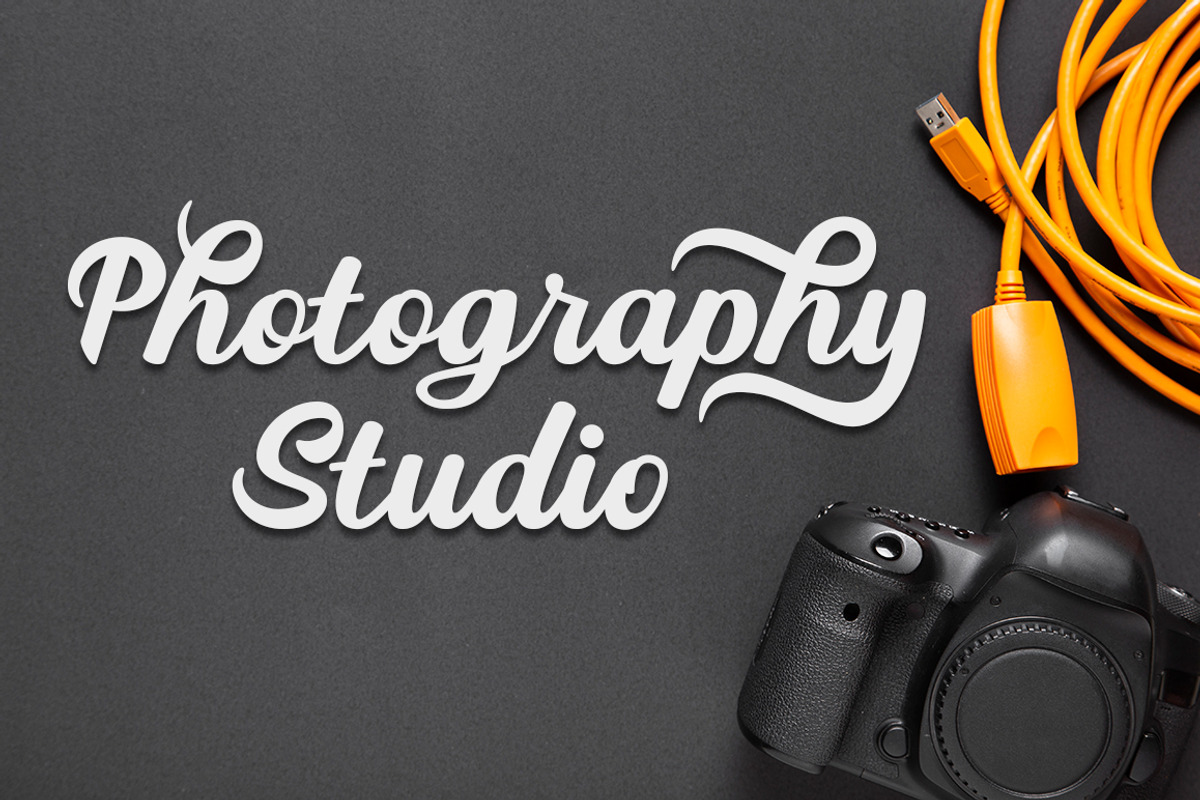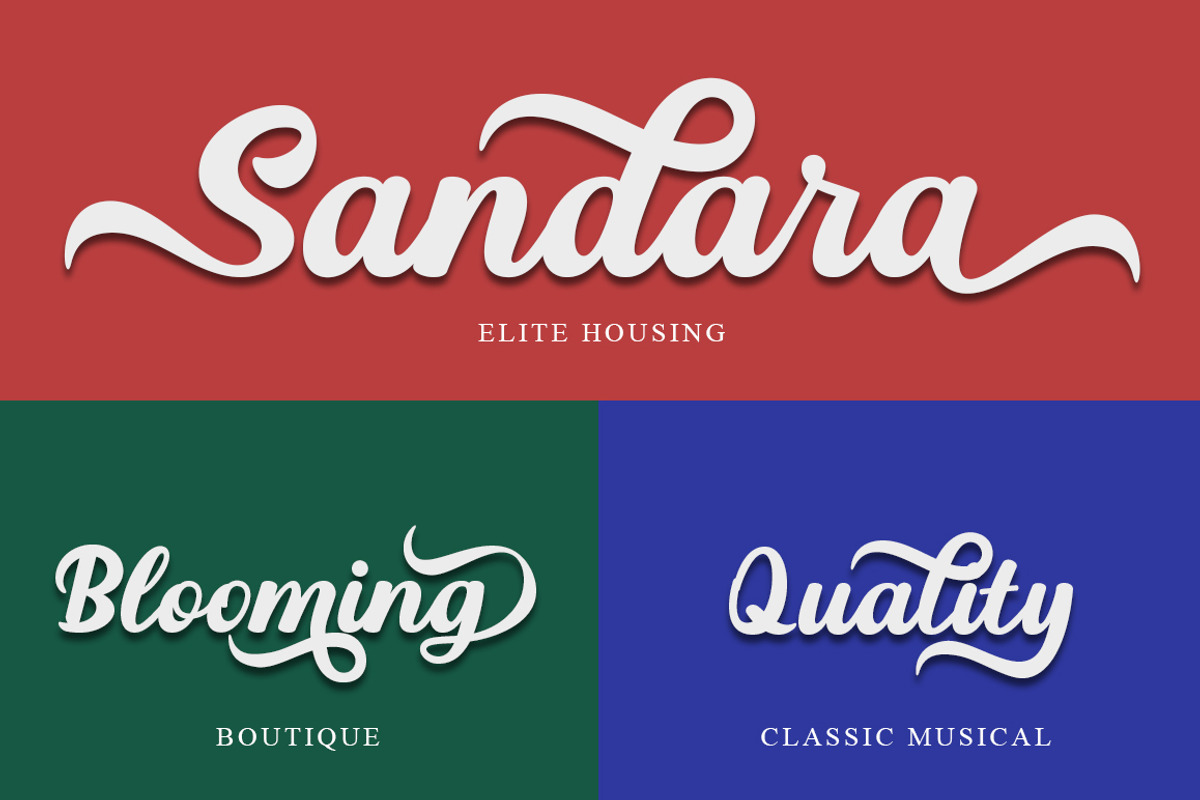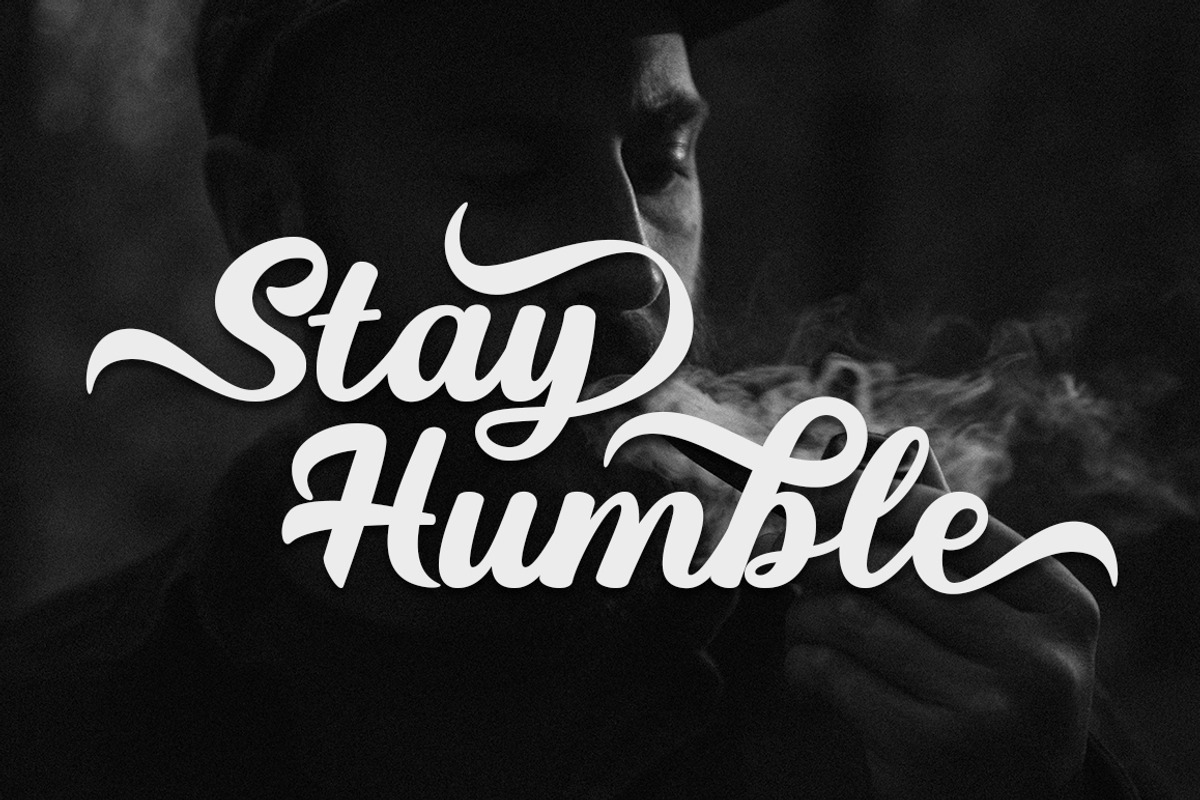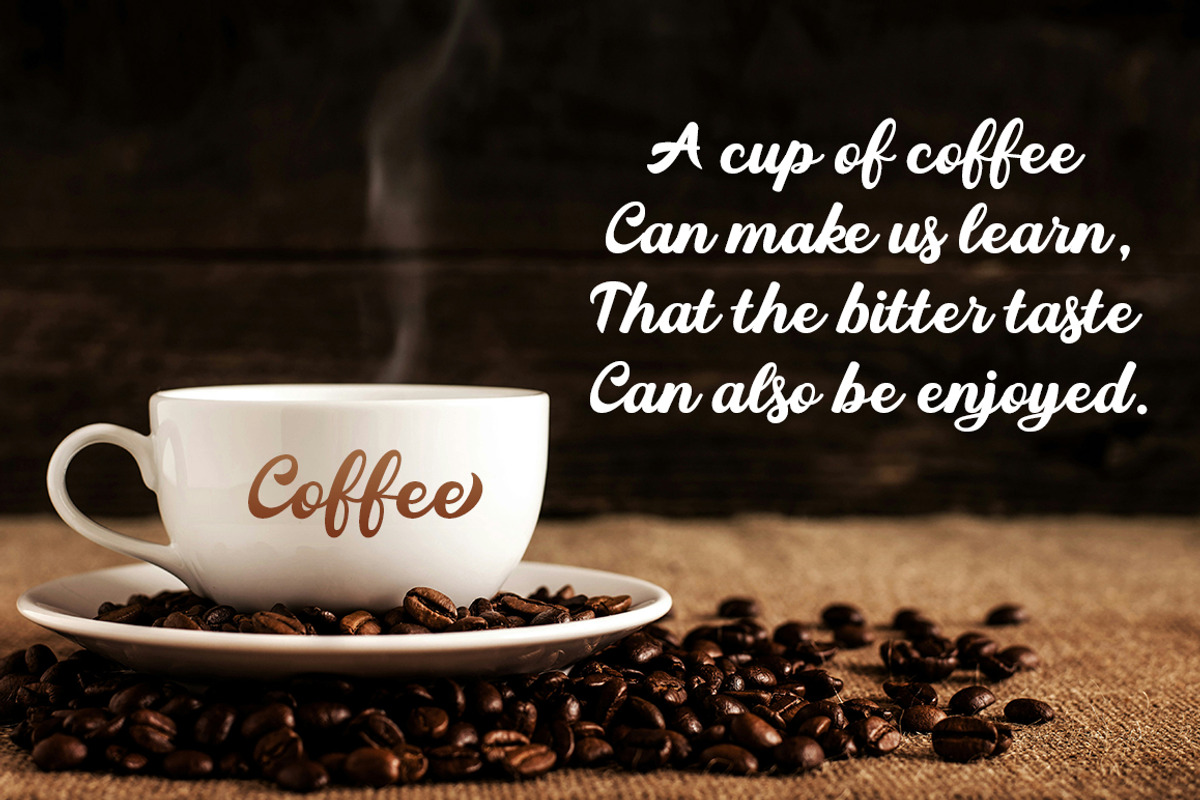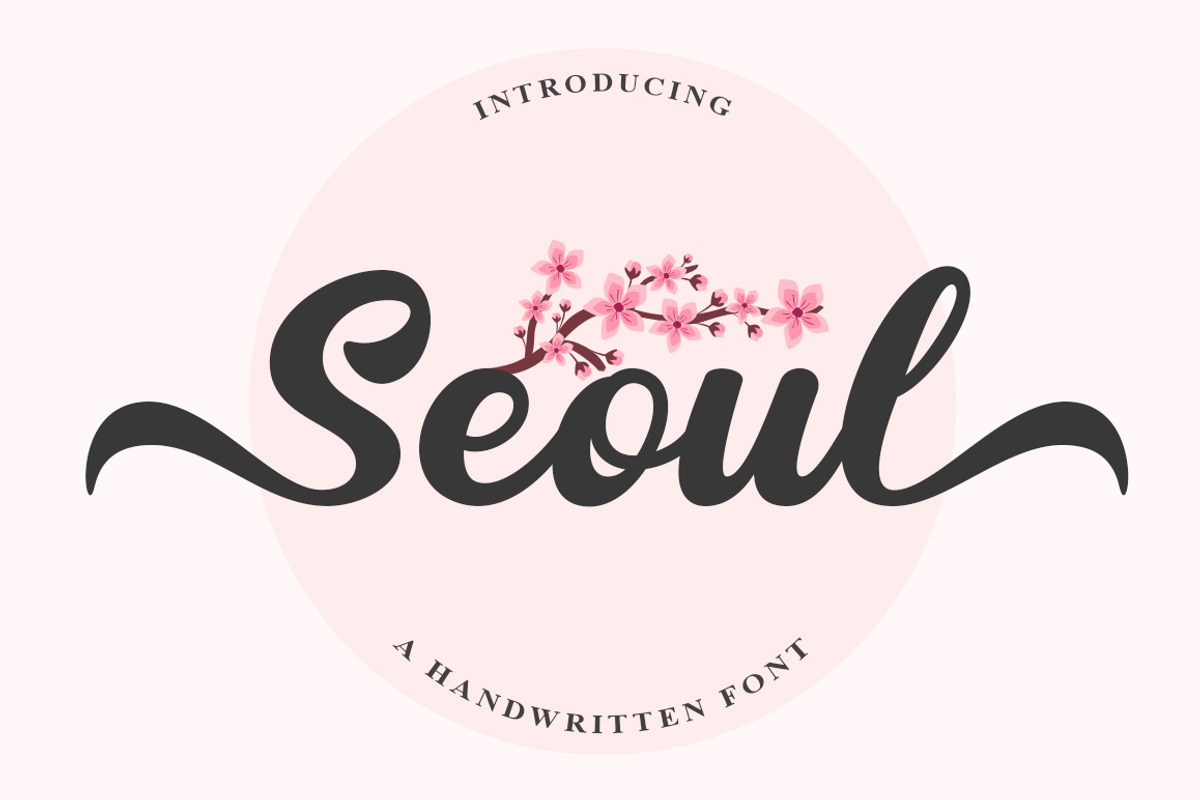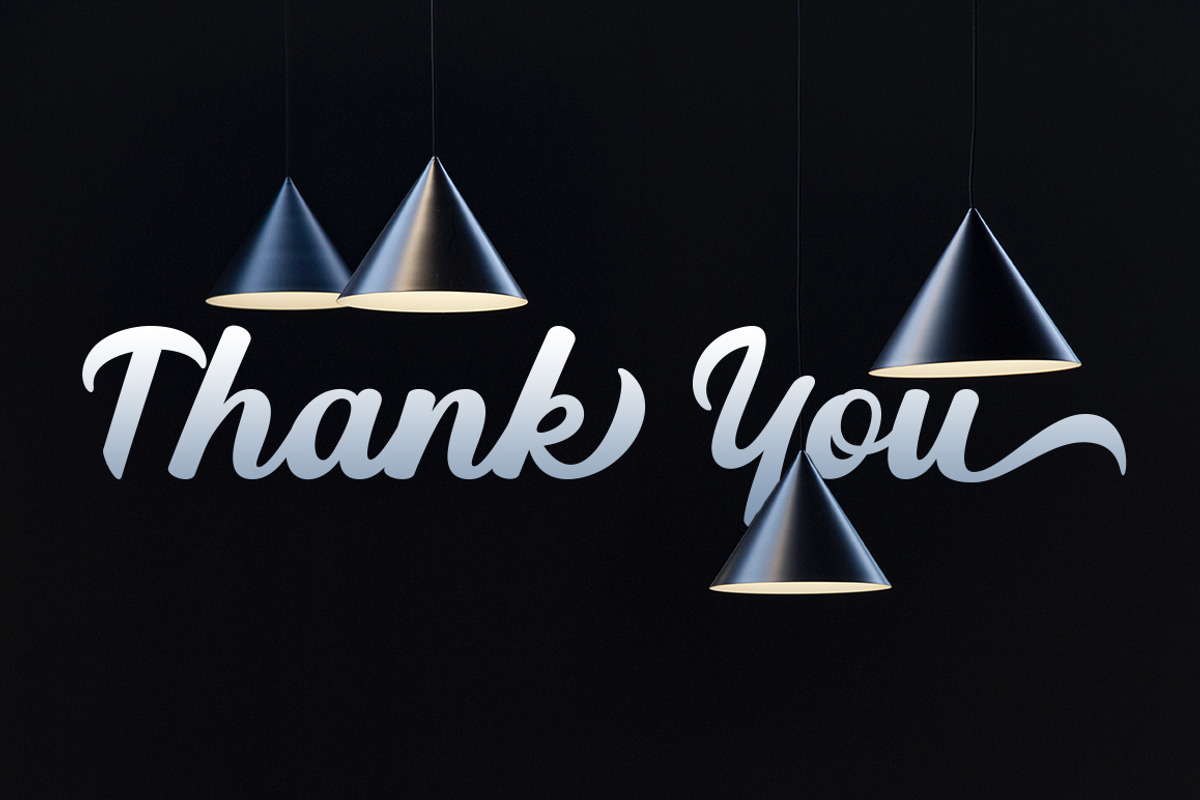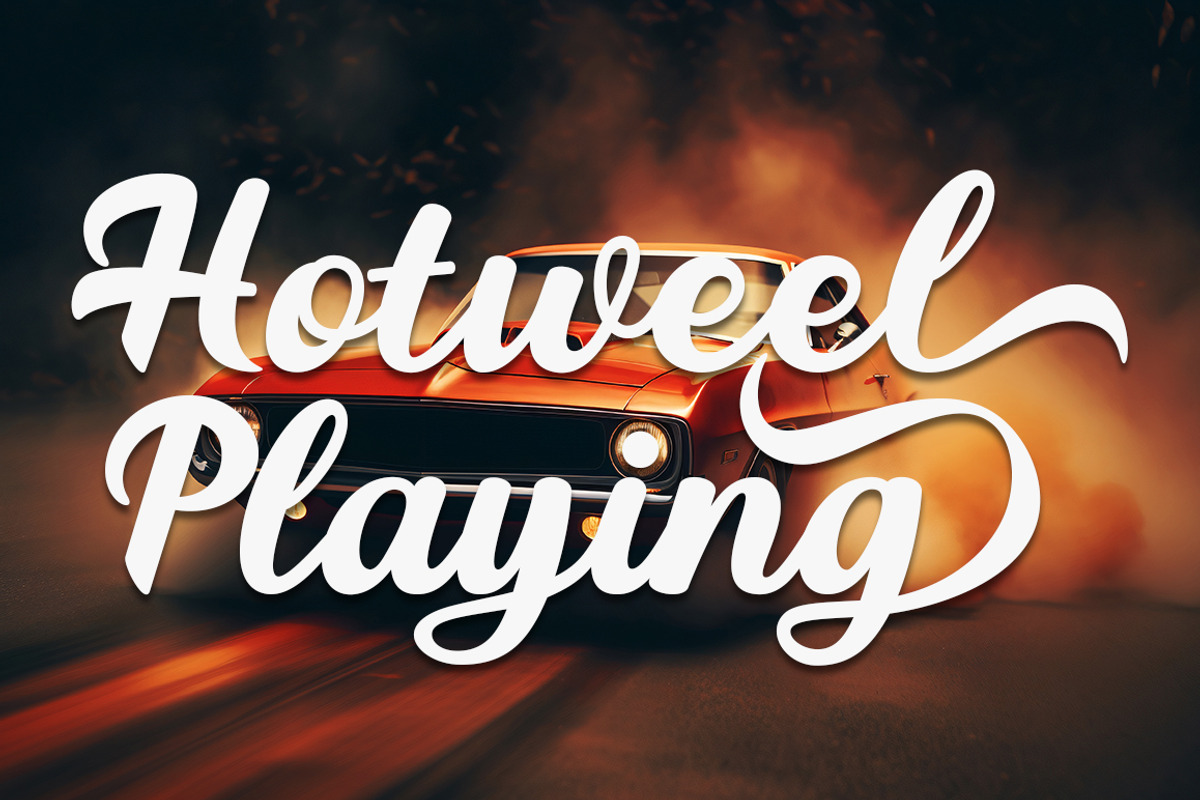
Seoul - Script Font
Seoul A Bold Fonts – a meticulously crafted, stylish font design, perfect for a variety of vector design and printing needs. This font is ideal for creating elegant digital wedding invitations, enhancing the look of blogs, strengthening online store branding, and adding a professional and modern touch to your social media presence. Additionally, Seoul A Bold Fonts is perfect for a wide range of printing applications, including apparel, accessories, bags, pins, logos, business cards, watermarks, and much more.
The main advantage of Seoul A Bold Fonts is its ability to create an elegant and captivating impression on any design, making your products or brand stand out with sophistication. Not only does this font offer a strong and bold appearance, but it also supports multiple languages, making it easy to tailor your designs for the global market.
Make every design project more special with Seoul A Bold Fonts – the font that will bring your creations to life, making them more modern, vibrant, and professional. There are no limits to your creativity, and we’re confident that this font will be the perfect choice for all types of designs. Get Seoul A Bold Fonts now and make your products even more captivating!